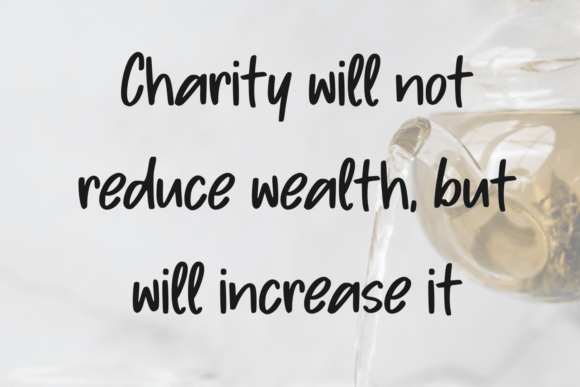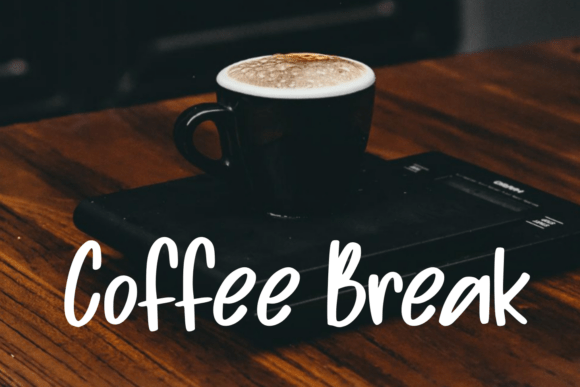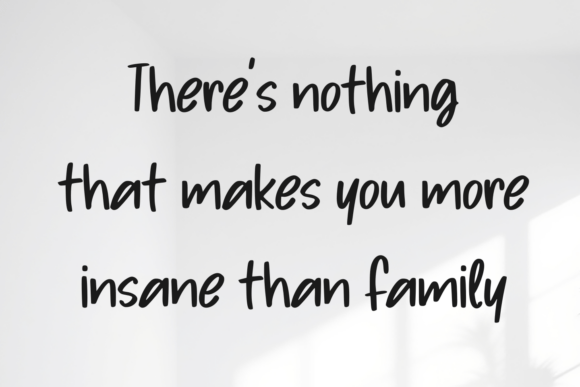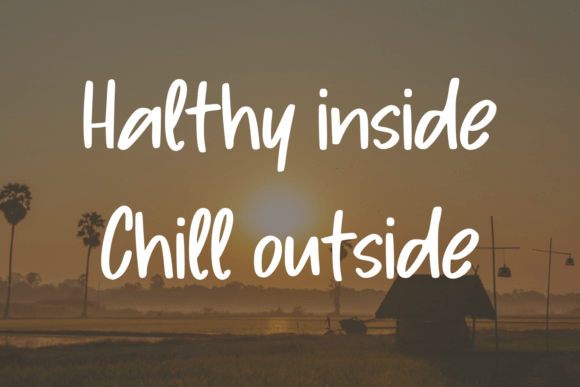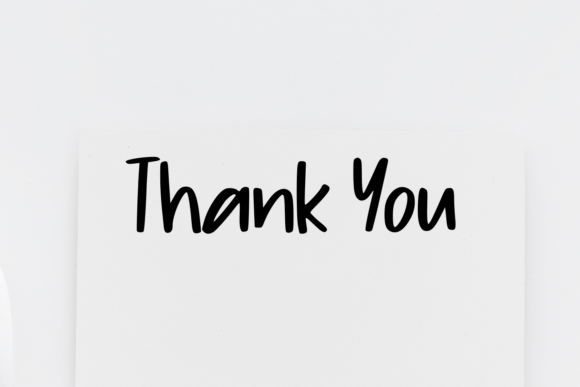
Introduction to Simple Mind Font
Simple Mind is a handwritten font that captures the beauty of effortless writing.
Its strokes flow naturally—neither too neat nor too wild—just like thoughts that find their way onto paper The Simple Mind font brings a sense of ease and sincerity to every word, making it perfect for quotes, journals, branding, or anything that calls for a personal touch.
Key Features of Simple Mind Font
Why Choose Simple Mind Font?
Simple Mind Font offers exceptional quality and versatility, making it a valuable addition to your design toolkit. Whether you’re creating for personal projects or commercial use, Simple Mind Font delivers professional results.